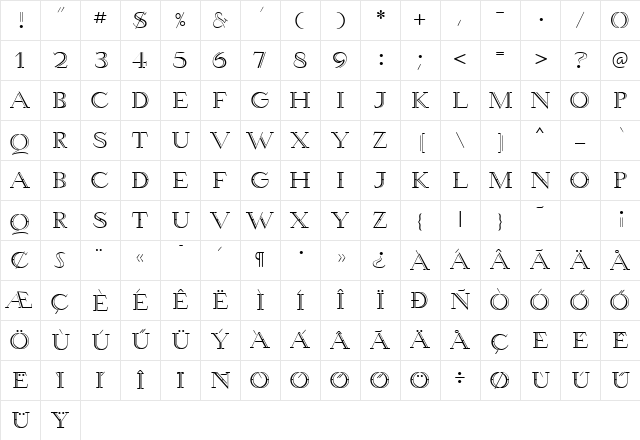
Huni_Wetetque Bold Regular Free Font
Huni_Wetetque  Bold Regular
Complete Huni_Wetetque Bold Regular glyph index. Displaying only characters natively supported by Huni_Wetetque Bold Regular font.
Design Context for Huni_Wetetque Bold
Huni_Wetetque Bold is a composed and adaptable typeface that performs quietly and consistently across a wide range of design contexts. Its bold stroke weight gives it real presence on the page.